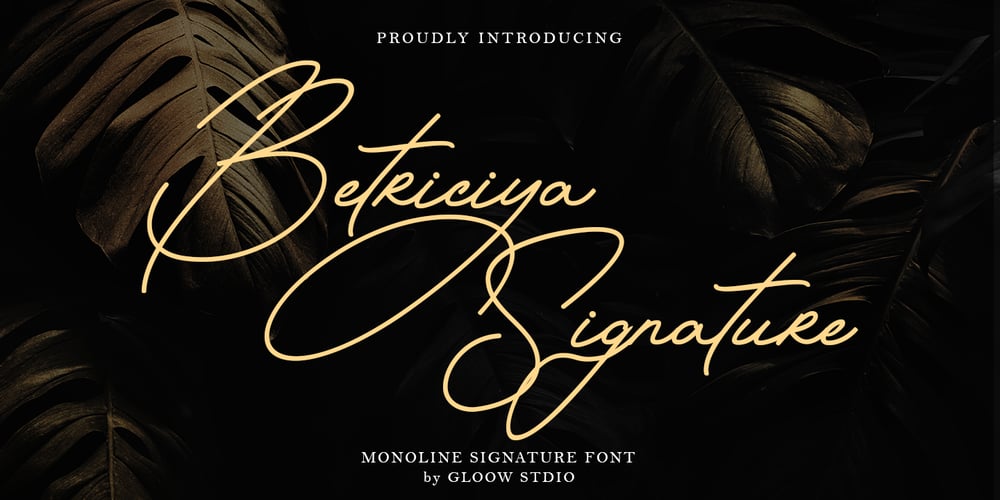
Betriciya Signature Font Family was designed by Muhammad Iqram and published by Gloow Studio. Betriciya Signature contains 2 styles and family package options. Introducing Betriciya SignatureAn elegant, graceful, yet simplistic cursive font.Inspire your audience, clients, or guests with this stylish, handwritten font that can be used for almost every platform such as websites, social media, pinterest, printed cards and many more!Aesthetically pleasing handwritten cursive font, just for beautiful you!Multilingual & Ligature SupportFull sets of Punctuation and NumeralsCompatible with:Adobe SuiteMicrosoft OfficeKeyNotePagesSoftware Requirements:The fonts that you’ll receive in the pack are widely supported by most software. In order to get the full functionality of the selection of standard ligatures (custom created letters) in the script font, any software that can read OpenType fonts will work.We hope you enjoy this font and that it makes your branding sparkle! Feel free to reach out to us if you’d like more information or if you have any concerns.